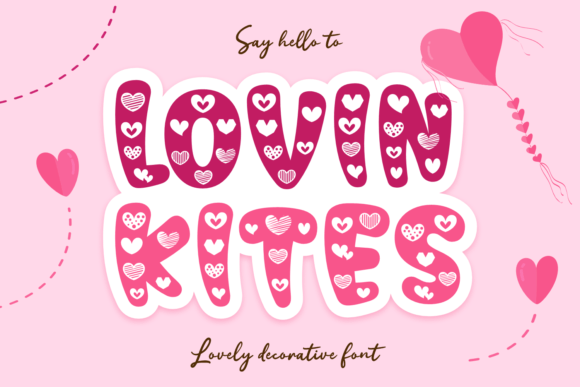
Are you looking for a font that is both cute and romantic? Look no further than Lovin Kites! This decorative font from Situjuh is the perfect addition to any project that needs a touch of whimsy and charm.
What makes Lovin Kites so special? For starters, it features tiny hearts inside each character, adding a playful and romantic element to any design. Whether you're creating a wedding invitation or a heartfelt message for a loved one, Lovin Kites is the ideal choice.
But that's not all. Lovin Kites is also PUA encoded, which means you can easily access all the delightful glyphs and swashes without any hassle. With Lovin Kites, your designs will be elevated to a whole new level of creativity and beauty.
So why choose Lovin Kites? Not only is it the best font for back cover, but it's also perfect for any project that needs a touch of romance and whimsy. Whether you're a designer or a DIY enthusiast, Lovin Kites is sure to inspire and delight.